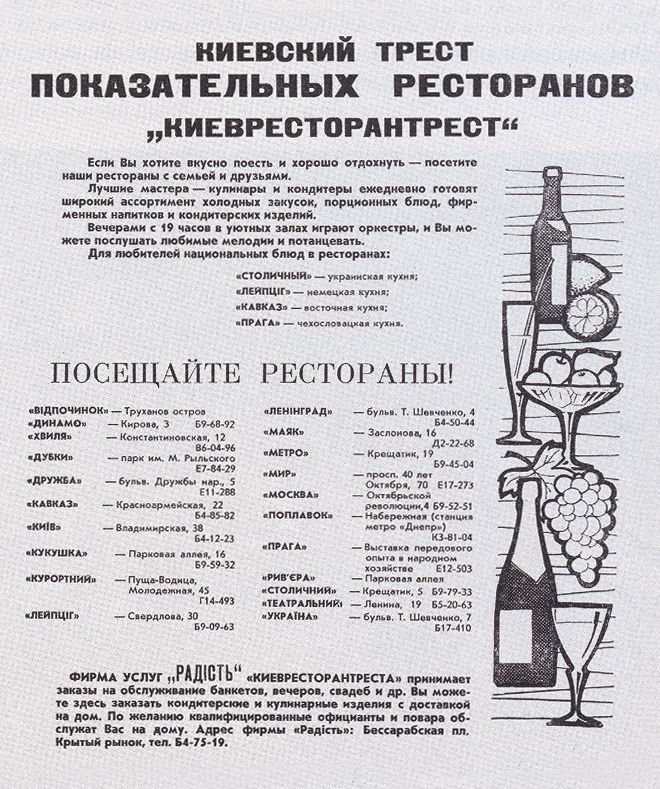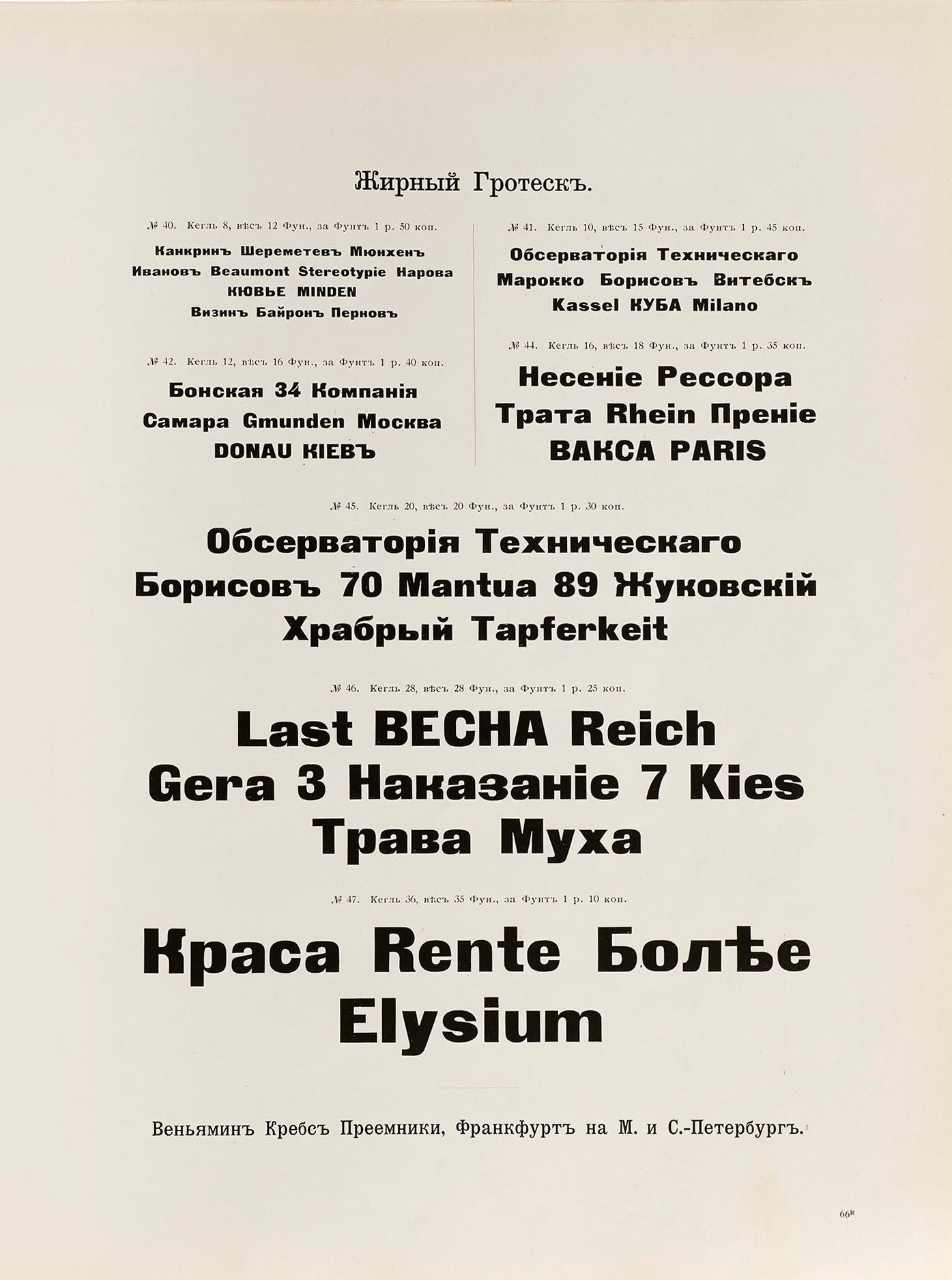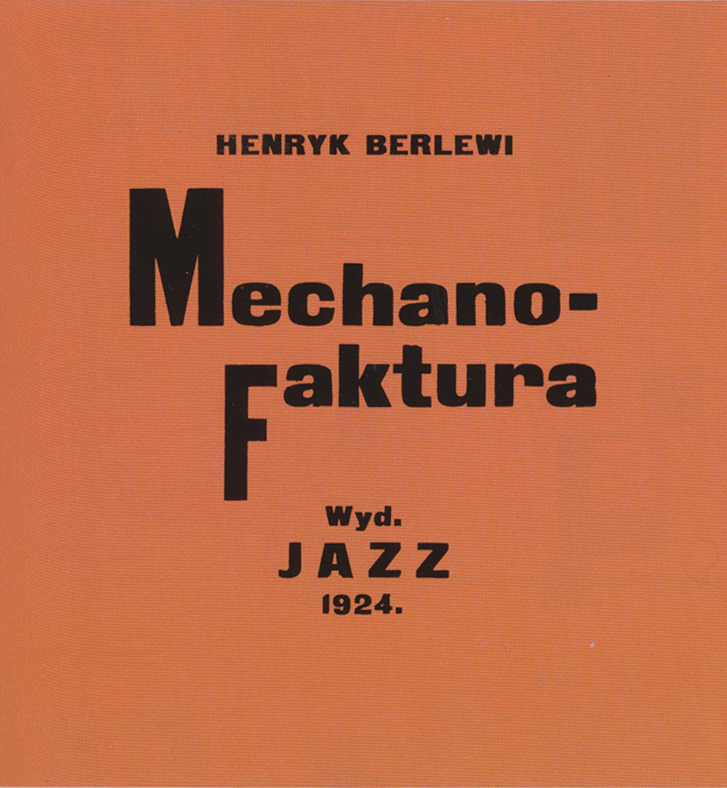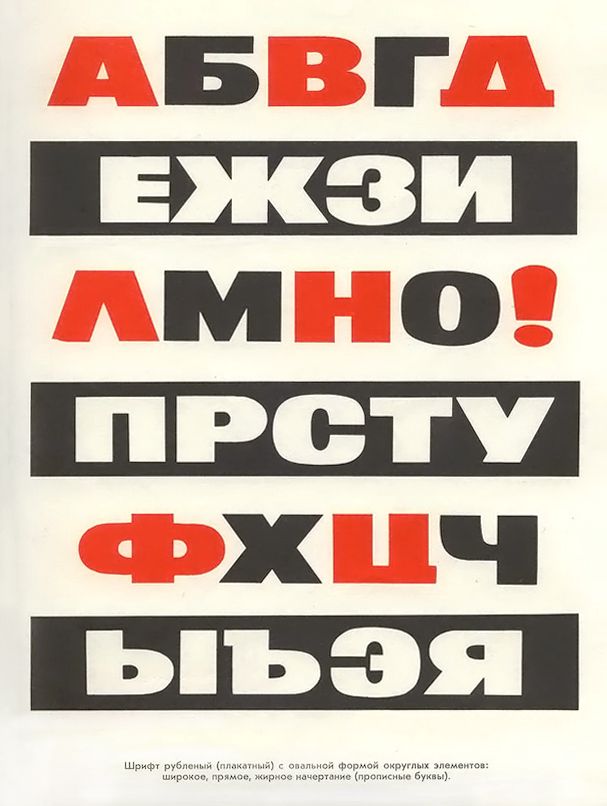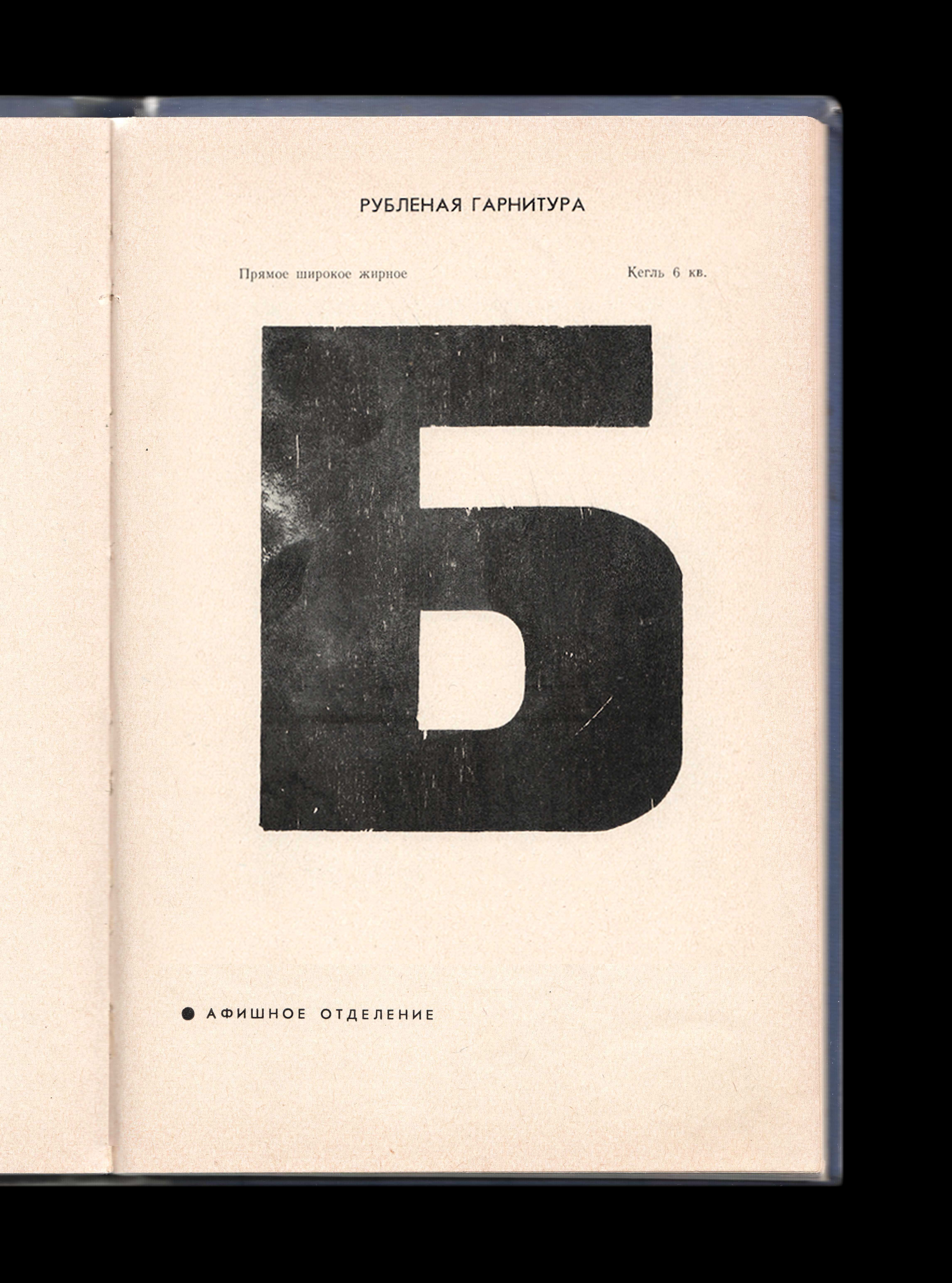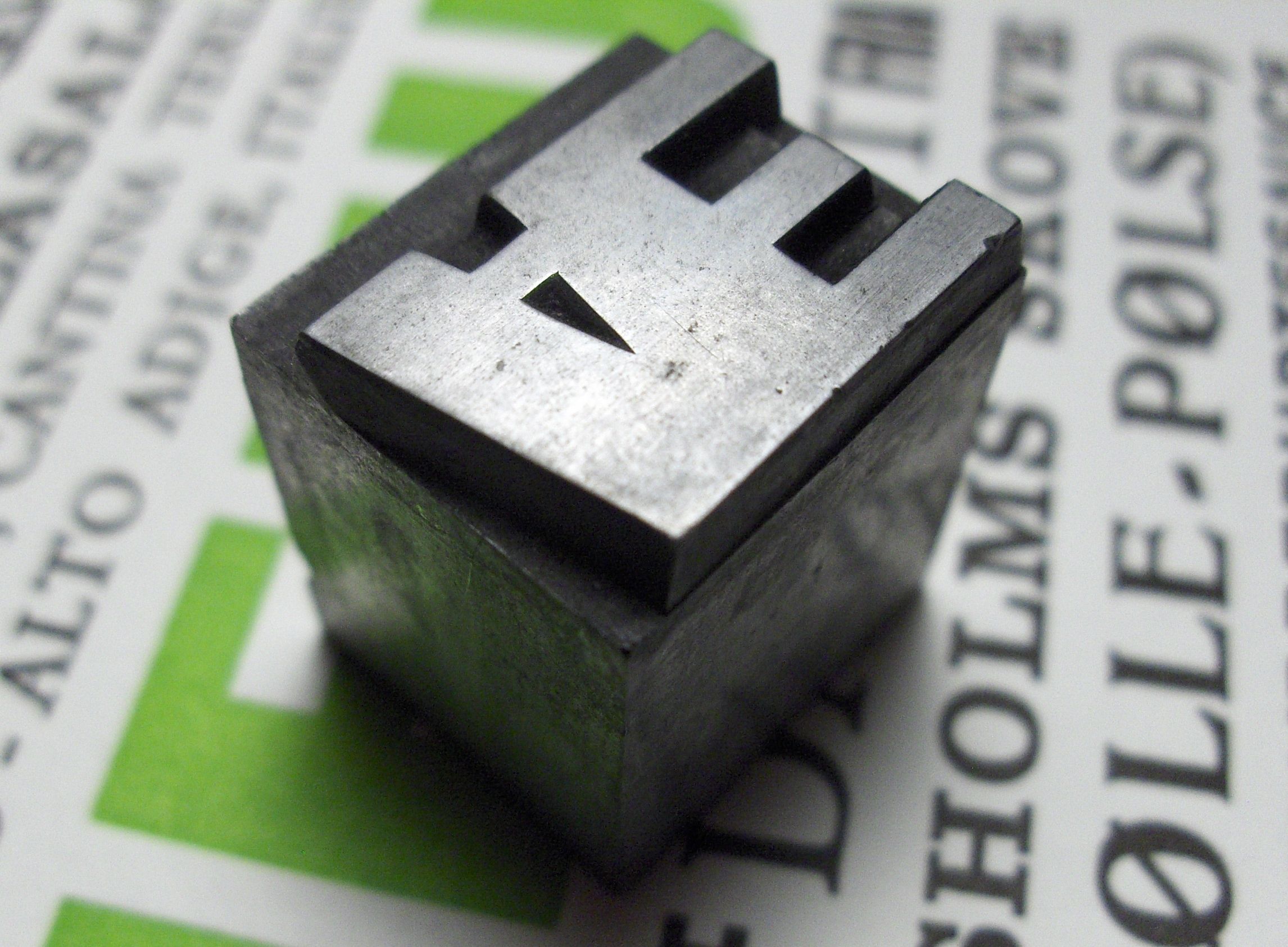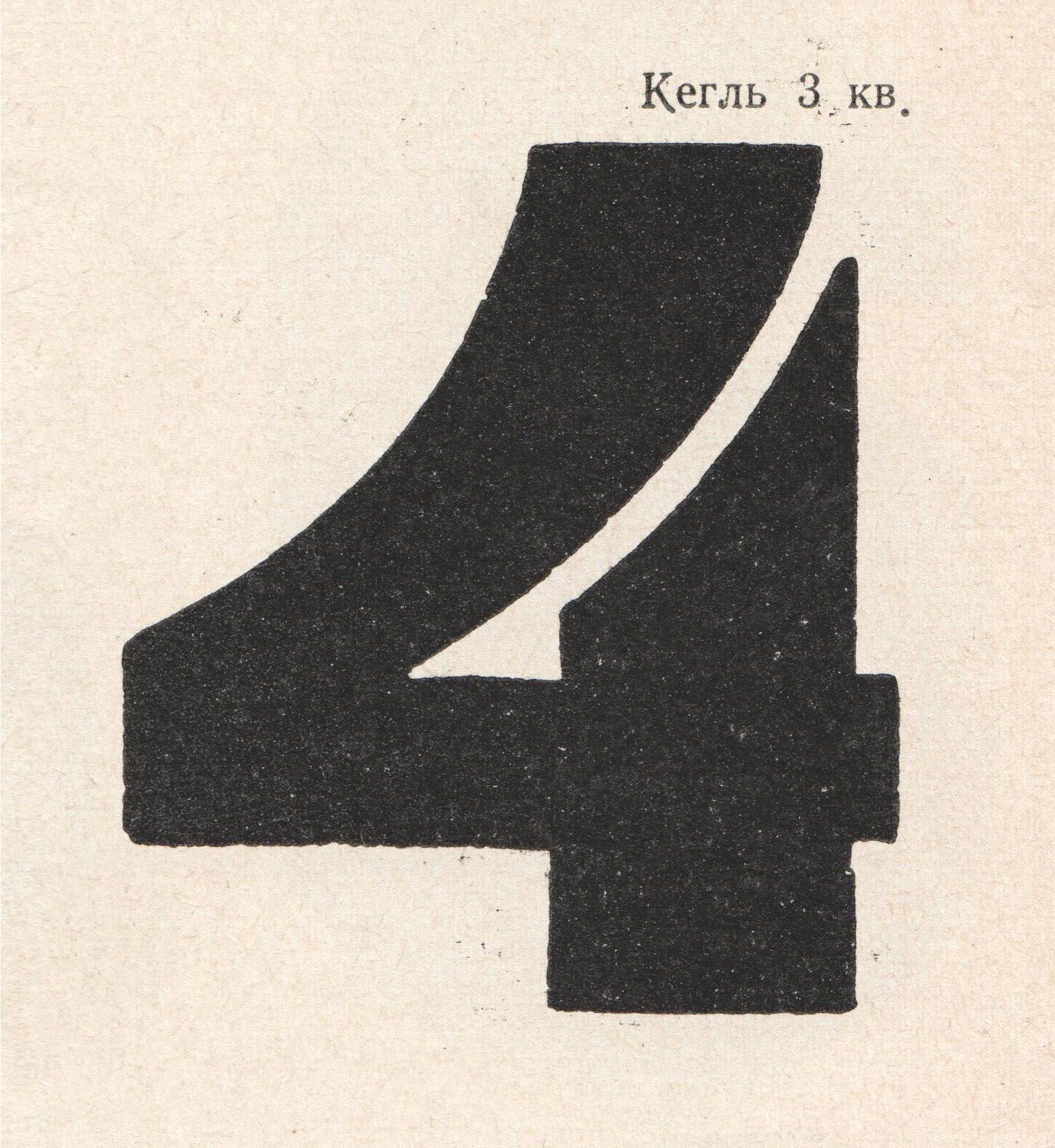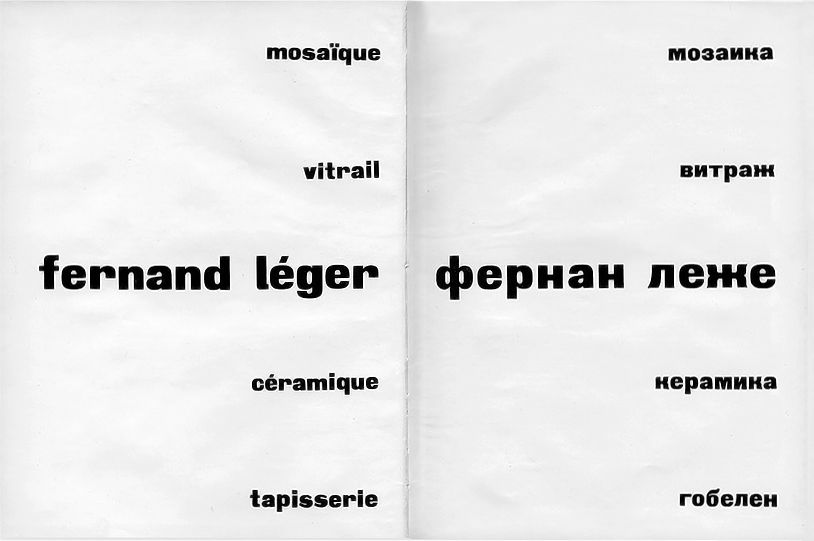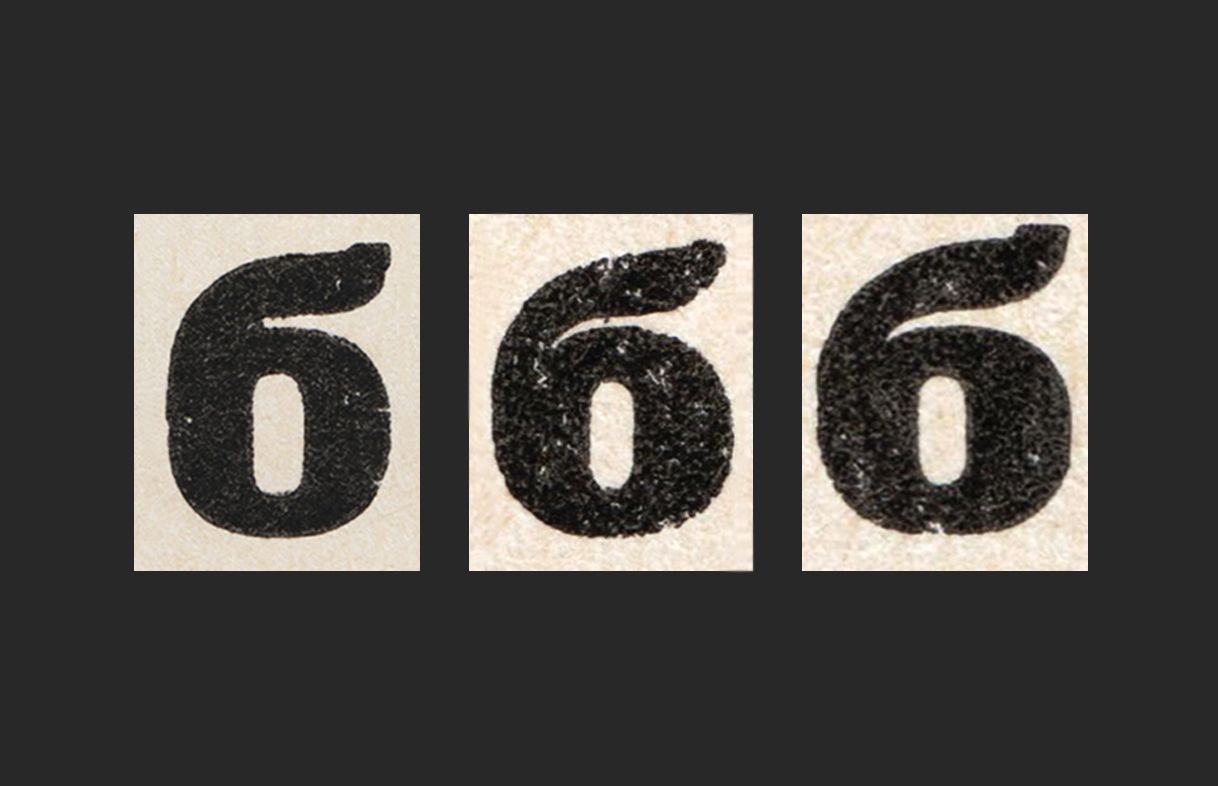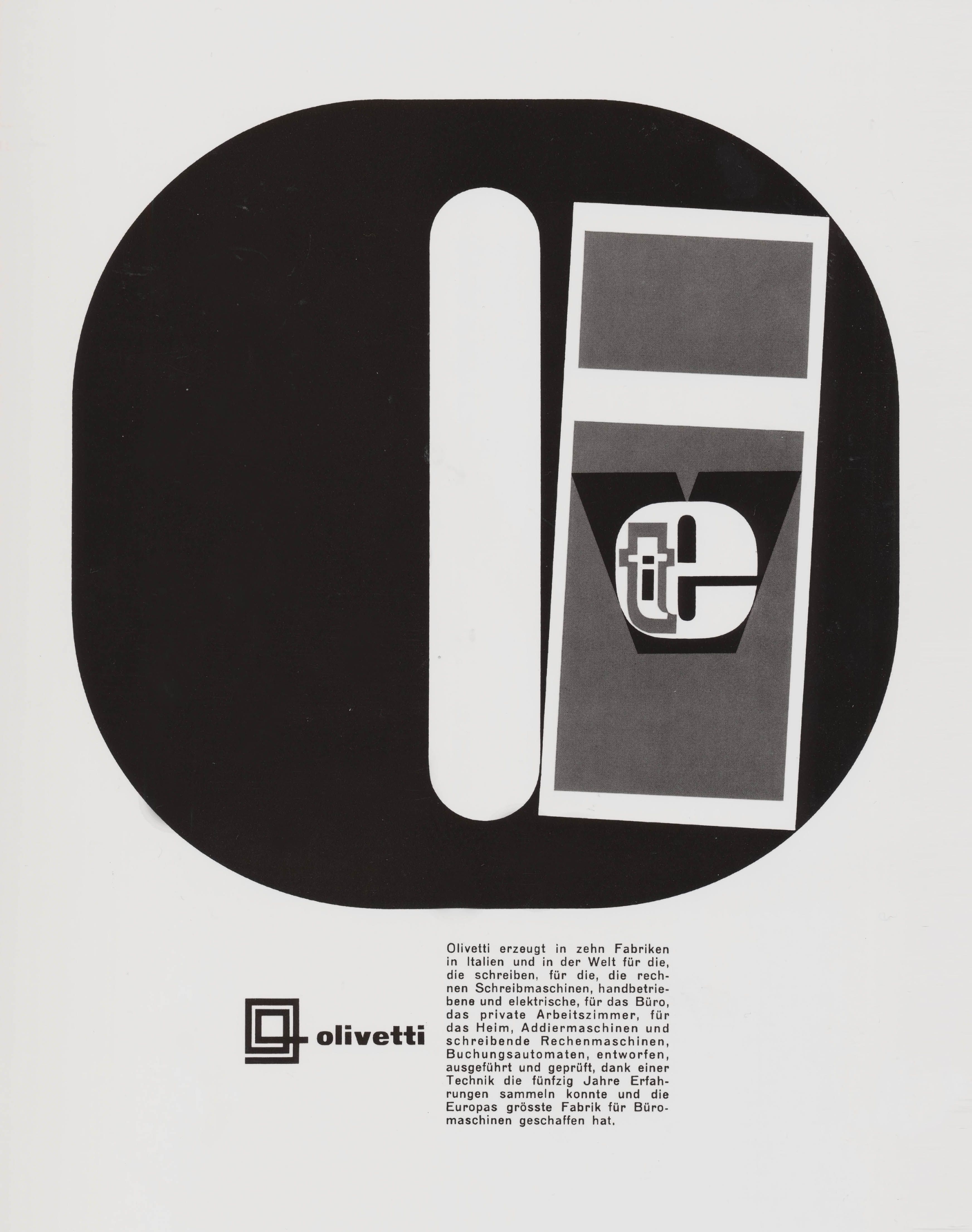
Rublena is the most used black grotesk on the ex-USSR terrain. It originated at the end of the XIX century in the city of Danzig (German Empire) as Zeitungs-Grotesque. Ever since this metal type was copied and distributed all around the globe in a broad variety of names and versions: Zeitungs-Grotesque, Fette Steinschrift, Breite fette Grotesque or Газетный Древній Черный to name a few. According to researcher Dr. Dan Reynolds, “it was once the protype for a heavy sans serif in German type-making.”*
Rublena is an “orphan child” of the metal type era. This type came out just one year before copyright law (“Geschmacksmustergesetz”) went into effect in 1876, which predestined the font to be bootlegged by different foundries, let alone the designer’s name remained unknown. Due to the high commercial success, some foundries cut Cyrillic versions, and the font quickly became popular in the Russian Empire. After the October Revolution of 1917, all the types were expropriated from private enterprises and became state property. According to the newly established plan-based economy, all the industries including printing and type-making were revised. Not only to save lead but also because of aesthetical reasons, many types were cast out and remelted. For this, a commission ОСТ 1337 has been convened, consisting of printing- and type specialists. Along with the other 31 types, Rublena passed the selection criteria and entered the Soviet era. Whenever typeset, this font has always served a solid comradery to the broad typographic tasks, convincing the viewer with its strong character, offering radical contrast between headline and body text/ photographs/ illustrations.
Knowing Rublena literally since childhood and being convinced of its everlasting visual strength, we aimed to re-evaluate it and produce a modern titling font. Rublena is not a revival of any particular source, but rather a free and reduced interpretation of an old protype. It takes the best from our research covering all possible artifacts from metal- and phototype sources to hand-painted posters and even “Nu Pogodi” cartoon and shines to you in a new build, ready for digital use in 2021.
KTF Rublena was developed by Yevgen Anfalov.
- From Cyrillic Specimen, Benjamin Krebs Nachfolger, Frankfurt am Main and St. Petersburg, 1899.
- From L. A. Khadova, Fernand Léger. Moscow: Iskusstvo, 1970.
- Cyrillic letter “Б”. From Obraztsy Shriftov (“Type specimens”). Kyiv: Kievskaya Pravda.
- From Henryk Berlewi, Mechano-faktura. Warsaw: JAZZ, 1924.
- From O. V. Snarsky, Font in the art of design: An Album-Manual. Kyiv: Reklama, 1975.
- Printed Olivetti advertisement designed by Giovanni Pintori, 1962. From Graphis 109, Zürich: Amstutz & Herdeg Graphis Press, 1963.
- From Stanislav Tsalyk, Kyiv: A 1970s Digest. Kyiv: Varto, 2012.
- Screenshot from the animated film series “Nu, Pogodi!” (“I'll get you!”) ep. 9. Soyuzmultfilm, 1978.
- From P. Fedoseyev, Nauka i chelovechestvo (“Science and Humanity”). Moscow: Znanie, 1973.
- The numeral 4 in Rublena. From Obraztsy Shriftov (“Type specimens”). Kyiv: Kievskaya Pravda.
- Comparative study of Rublena letterforms from multiple sources. Yevgen Anfalov, 2025.
Round a
Americana
Alternative Kk
Walk
Alternative r
Dorian
Alternative Q
Quantum
Curly l
Lollipop
Western-looking Cyrillic Kk
Київ
XIX century legacy set
1→1
XIX century legacy set
Близнюк Візерунчастий
XIX century legacy set
Гигант